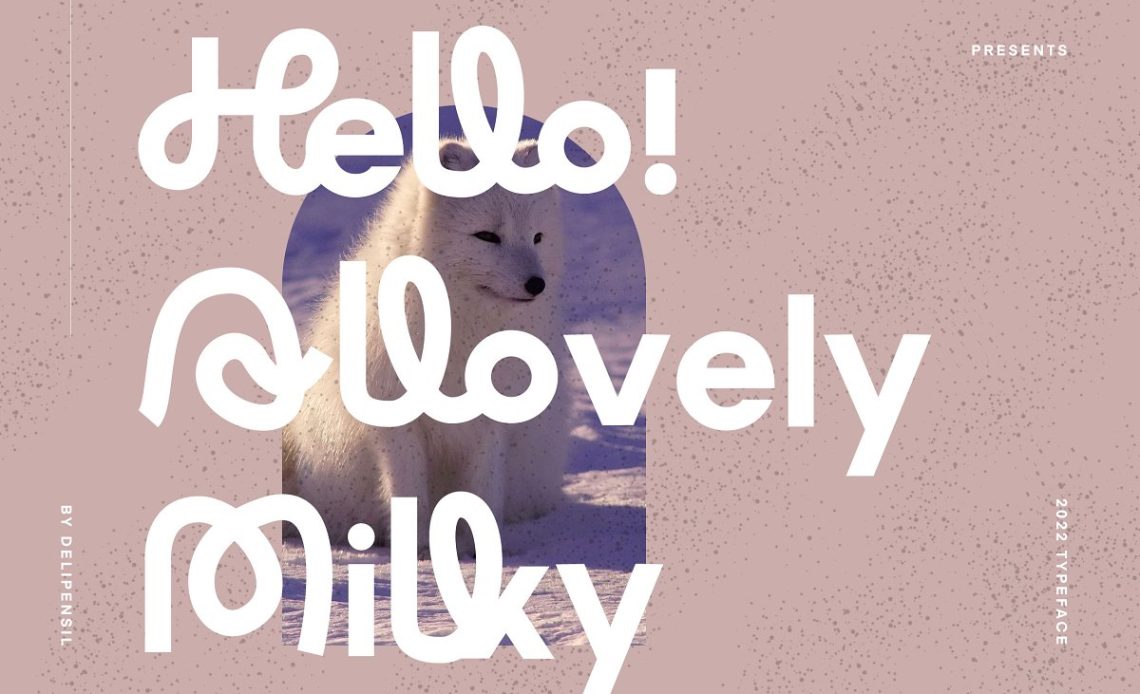
Introducing Allovely - the Modern SansSerif Typeface that will take your creative projects to new heights. Created by the talented Delip Nugraha, this font is a true masterpiece that combines beauty, elegance, and sophistication in one stunning package.
Allovely is more than just a font, it's a work of art. Its clean and classic design will instantly captivate your audience, making it perfect for a wide range of applications. Whether you need a striking logo, an eye-catching headline, or a mesmerizing book cover, Allovely has got you covered.
But what sets Allovely apart from the rest? Its versatility and attention to detail make it the ultimate choice for any design project. With the Allovely OTF, Font Style, Numeral & Punctuation, Kerning Style, Ligature, and more, you have everything you need to let your creativity run wild.
This font is not just visually appealing, it also evokes a sense of mindfulness and tranquility. Its modern yet timeless design will effortlessly elevate your brand and leave a lasting impression on your audience. Allovely is the perfect choice for those who crave elegance and sophistication in their designs.
But don't just take our word for it, experience the magic of Allovely yourself. With this font, the possibilities are endless. Let your imagination soar as you create stunning visuals that will leave your audience in awe. From logos to magazine layouts, Allovely will make your designs stand out from the crowd.